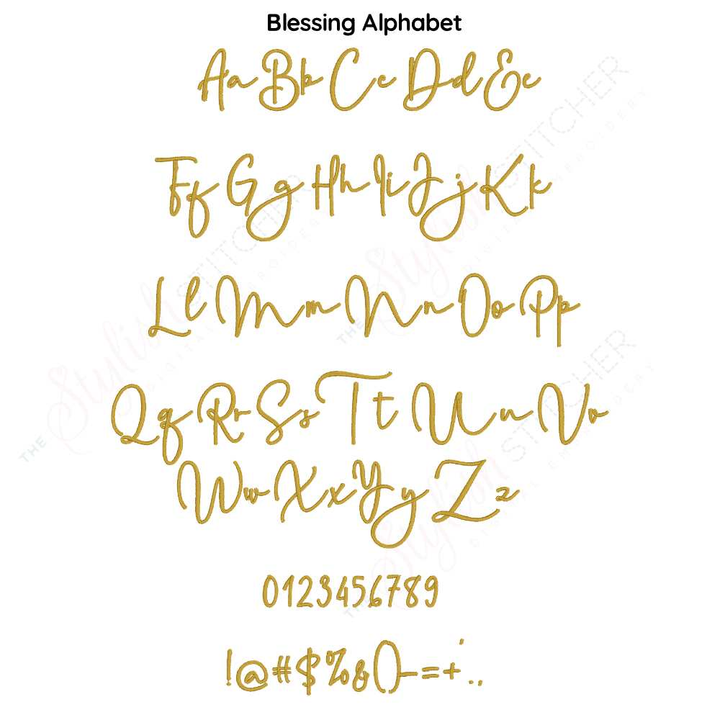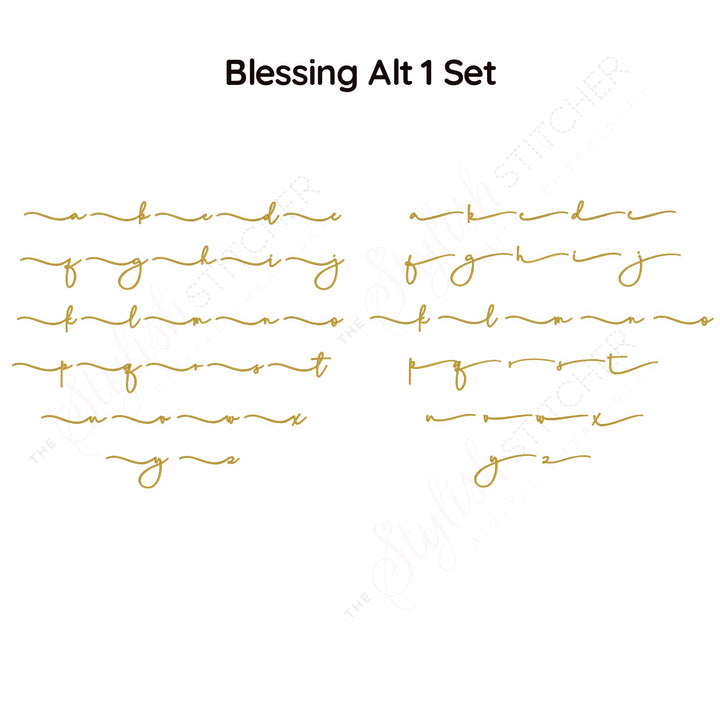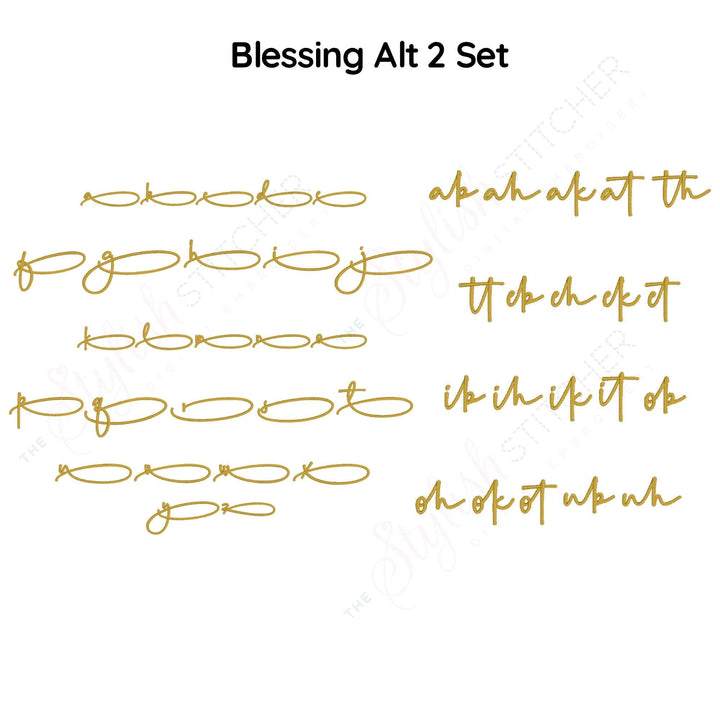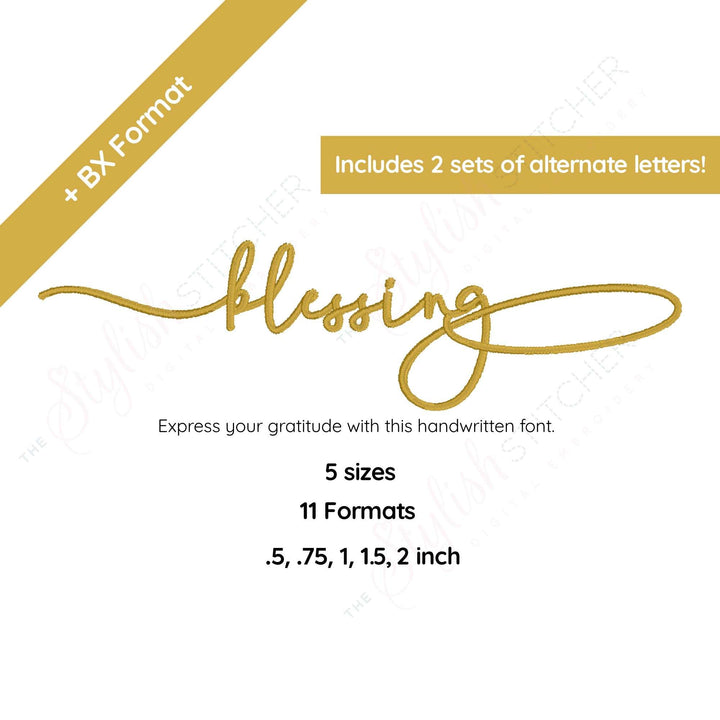
Blessing Digital Embroidery Font
Introducing Blessing, the digital embroidery font that will elevate your creations to new heights! With its graceful curves and elegant script, Blessing is the perfect addition to any project that needs a touch of sophistication and charm. Whether you're creating personalized gifts, embellishing clothing, or adding a special touch to home decor, Blessing will help you achieve a look that's both timeless and modern. Download Blessing today and let your creativity soar!